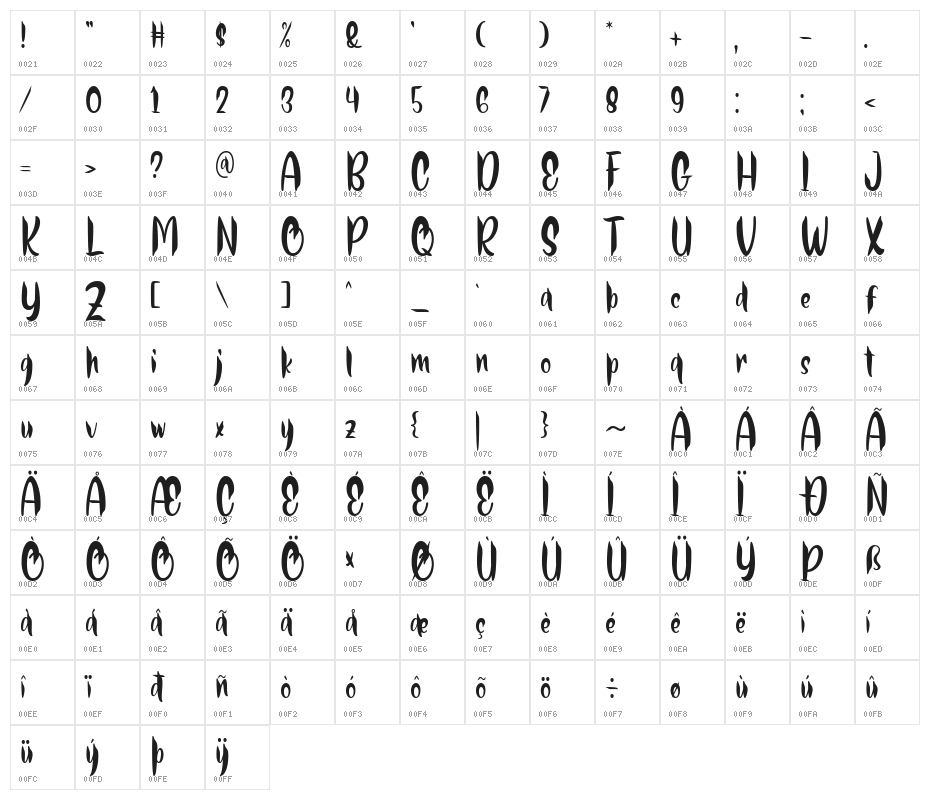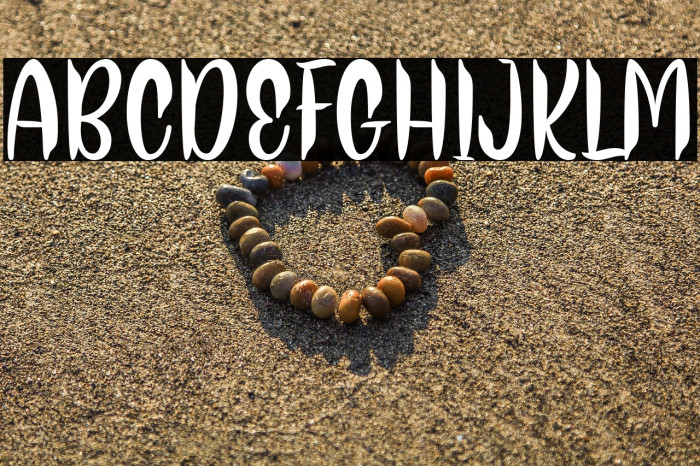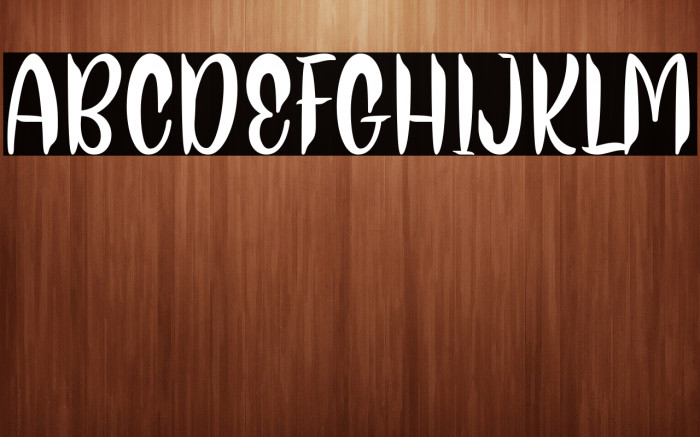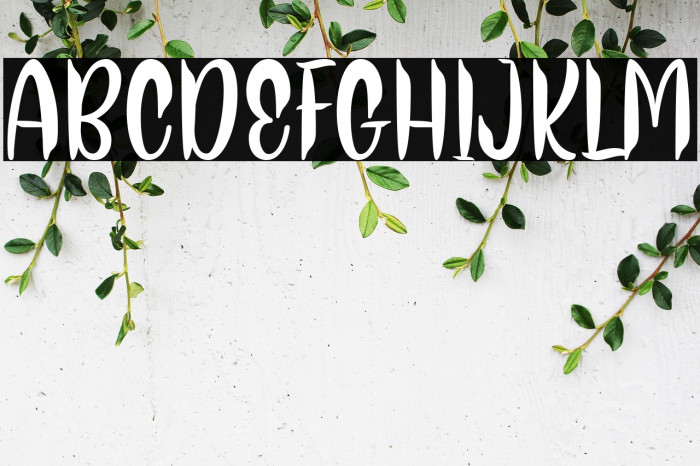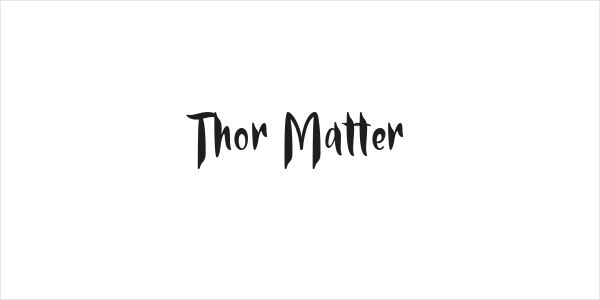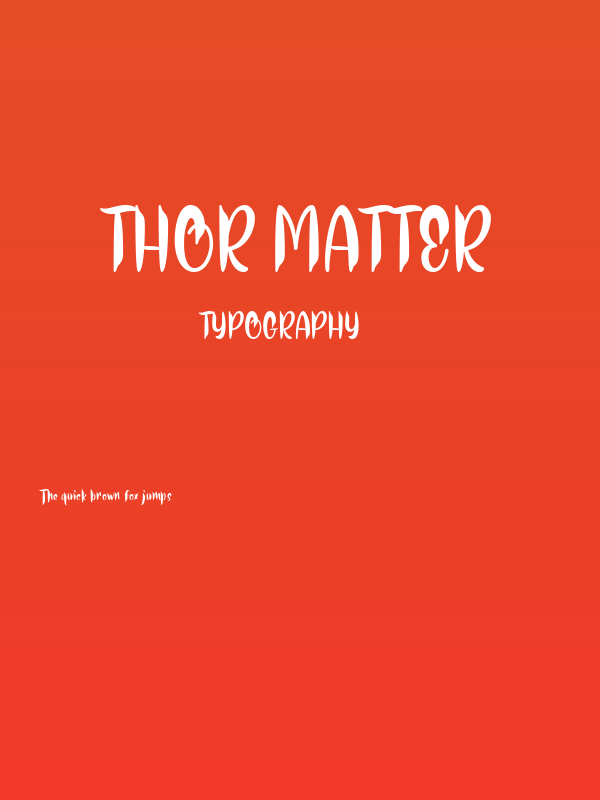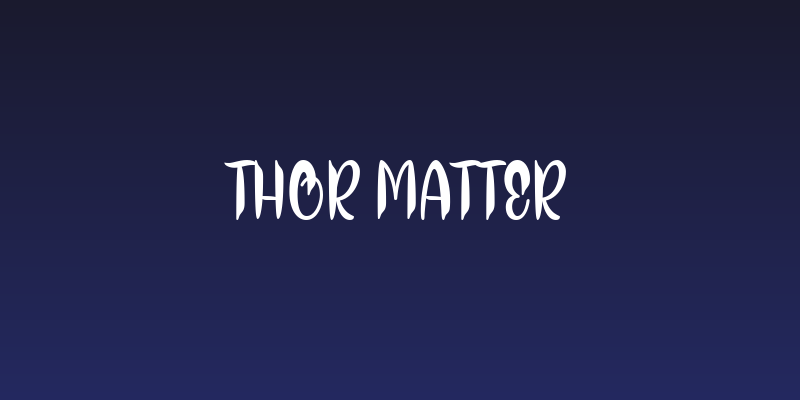
Thor Matter Font
Thor Matter Description
This font features a bold and expressive style with a handwritten appearance. The characters are slightly slanted, giving a dynamic and energetic feel. The strokes are thick and vary in width, adding a sense of movement and fluidity. The uppercase letters are tall and commanding, while the lowercase letters maintain a consistent flow. The numbers and special characters are designed to match the overall playful and artistic vibe. This font is ideal for projects that require a personal touch or a creative flair.
| Proposed Projects | Ideal for branding, posters, invitations, and creative projects that need a personal and artistic touch. |